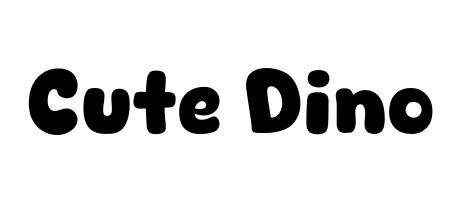
Cute Dino
Cute Dino is a playful, rounded sans-serif font. Its bubbly, slightly irregular letterforms evoke a childlike charm. The bold weight and generous spacing give it a friendly, approachable feel, perfectly suited for children's products or branding that aims for a sweet, whimsical aesthetic. The overall effect is soft and inviting.